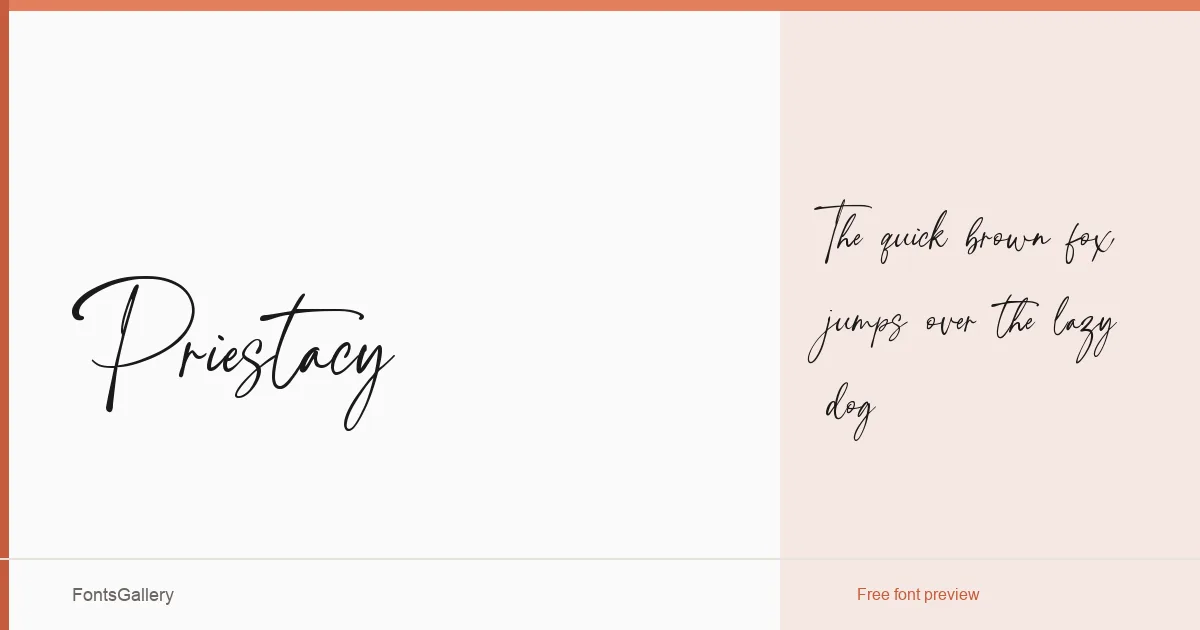
About Priestacy Font
Priestacy is an elegant script typeface designed by Muhamad Yusron Billah, crafted to evoke a sense of luxury, romance, and timeless sophistication. Its flowing letterforms make it a compelling choice for projects that demand a refined and classic aesthetic. Whether used for personal creative endeavors or refined design work, Priestacy brings a distinguished character to any composition.
Priestacy features the graceful, sweeping strokes characteristic of classic script typography, with letterforms that exude elegance and romantic charm. The fluid connections between characters lend the typeface a sense of natural movement, reinforcing its luxurious and classic appeal. Each glyph is crafted with careful attention to balance, making the overall impression both polished and expressive.
Priestacy shines in applications such as wedding stationery, invitation cards, greeting cards, logos, and branding projects where an elevated, romantic tone is desired. Its expressive script style pairs beautifully with the clean lines of Helvetica for a modern contrast, or alongside Aresink for a harmonious, stylistically cohesive pairing.